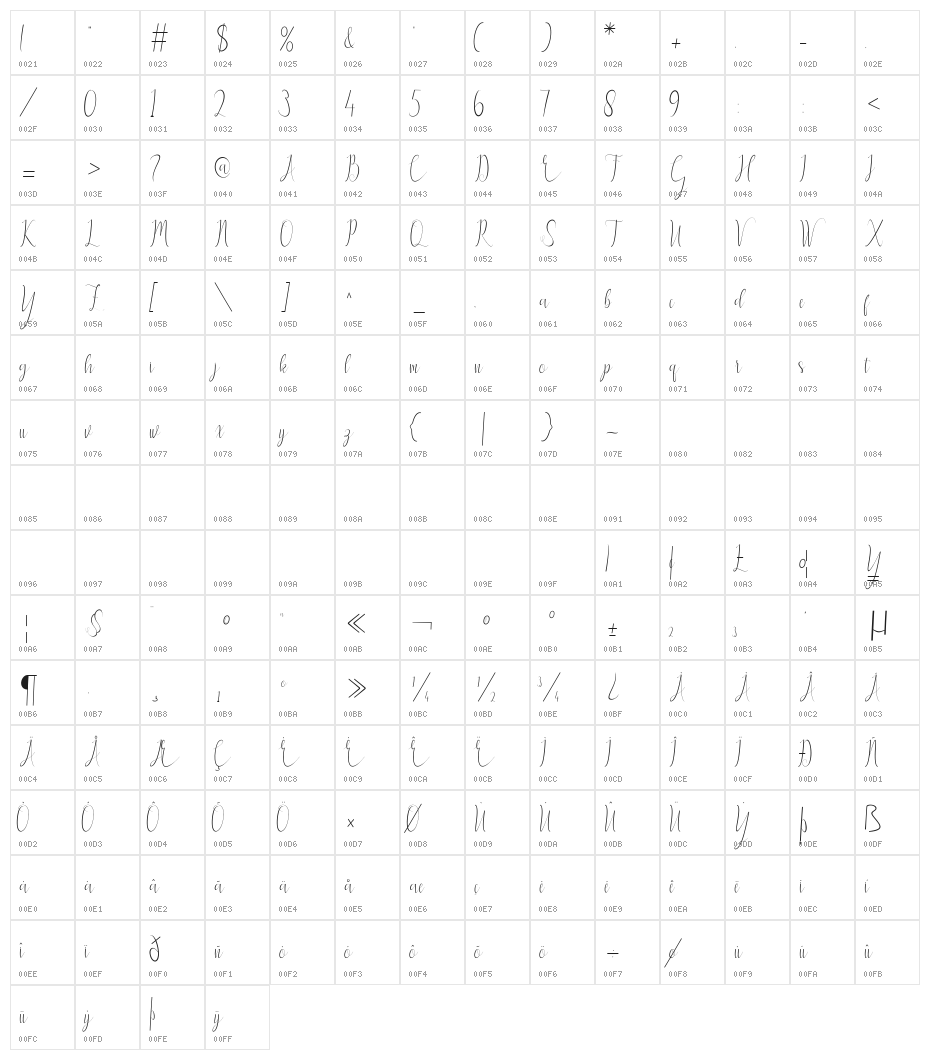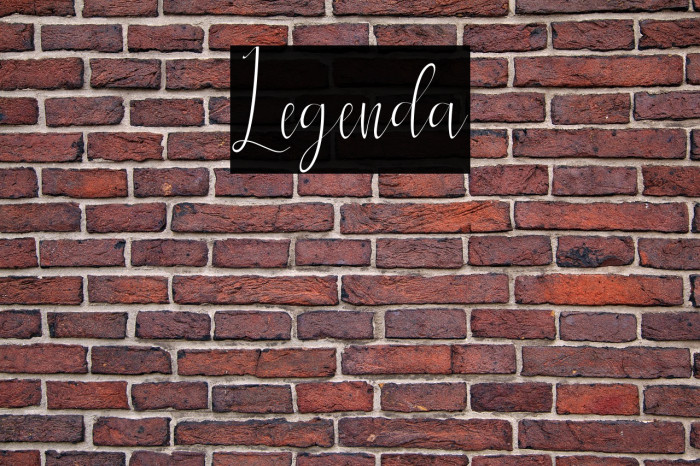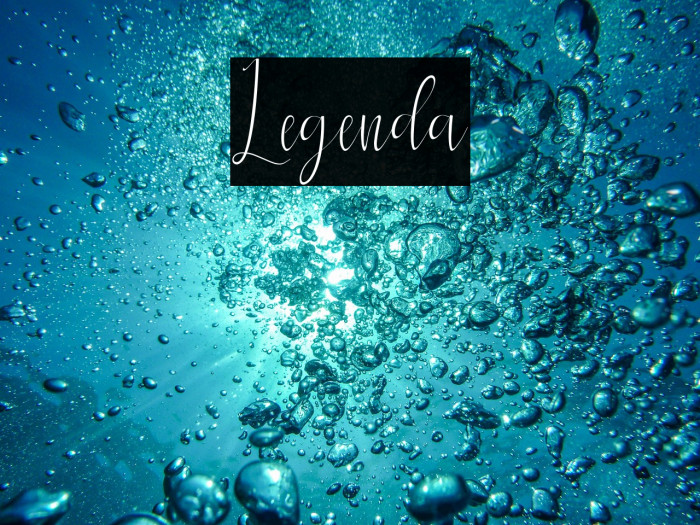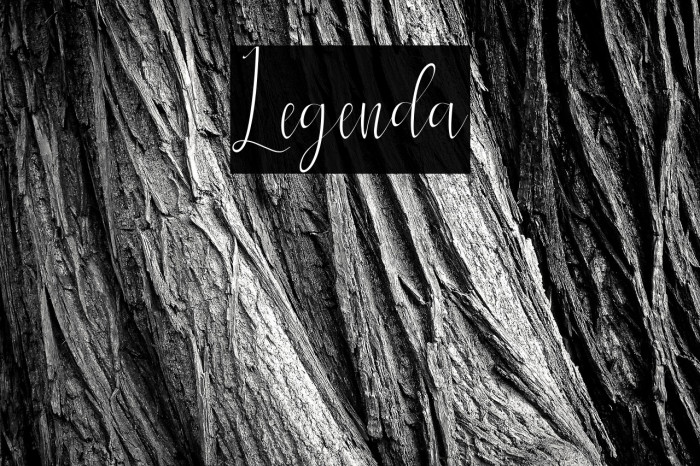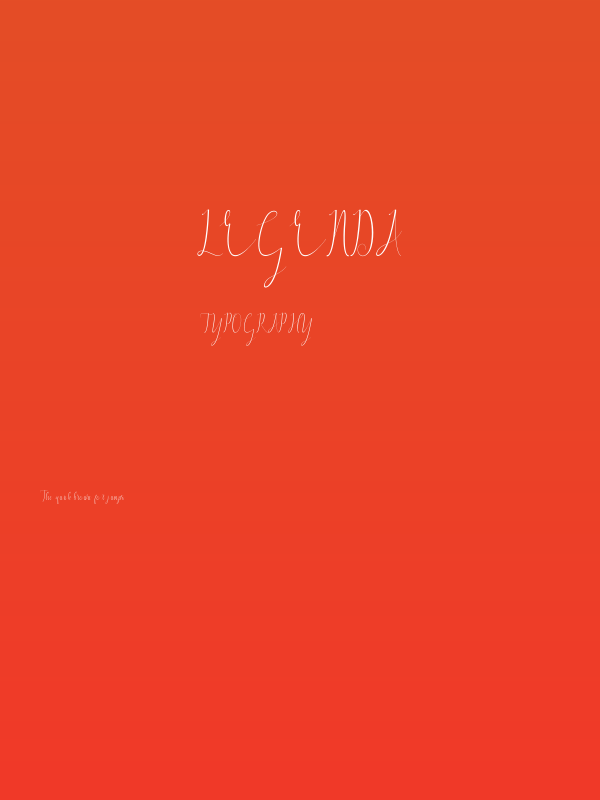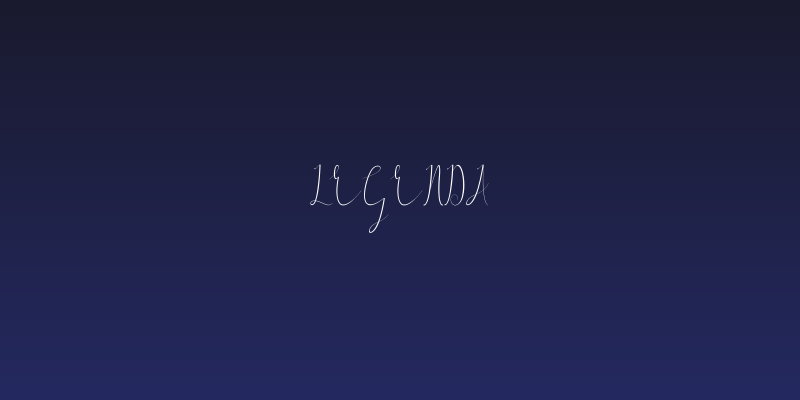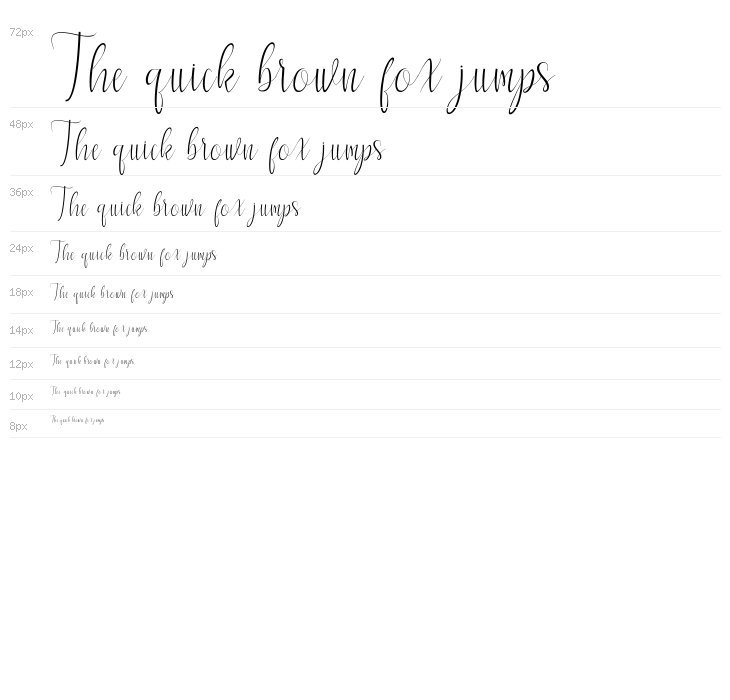
Legenda Font
Legenda Description
This elegant script font features a delicate and flowing style, characterized by its thin, graceful strokes and subtle curves. The uppercase letters exhibit a sophisticated flair with elongated ascenders and descenders, creating a sense of movement and fluidity. The lowercase letters maintain a consistent style, complementing the uppercase with their own gentle curves and loops. The numerals are distinct yet harmonious with the overall design, while the special characters add a touch of whimsy. This font's airy and light appearance makes it ideal for projects that require a touch of elegance and sophistication.
| Overall Style | Elegant, Sophisticated |
| Use Case | Headlines, Invitations, Branding |
| Proposed Projects | Ideal for wedding invitations, elegant branding, greeting cards, and high-end product packaging. |